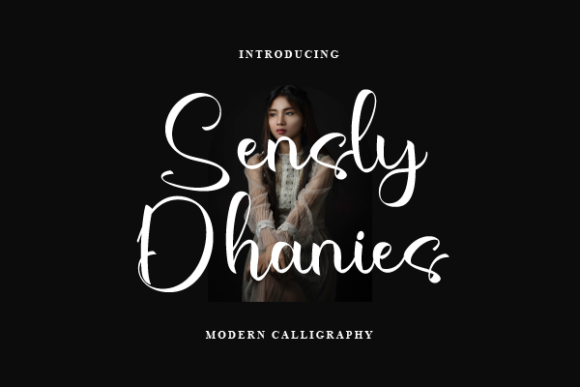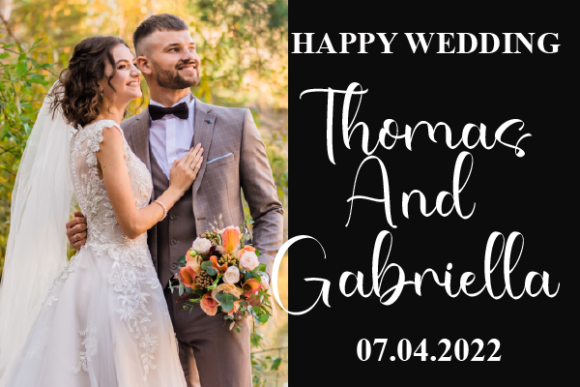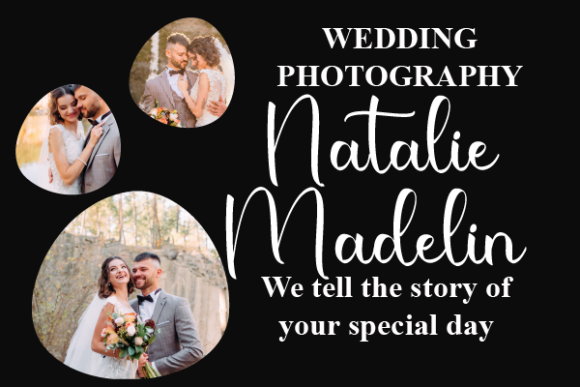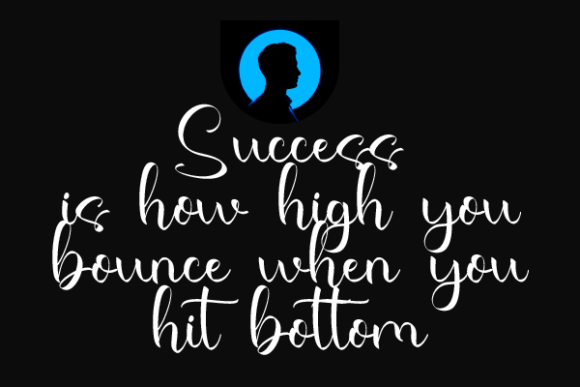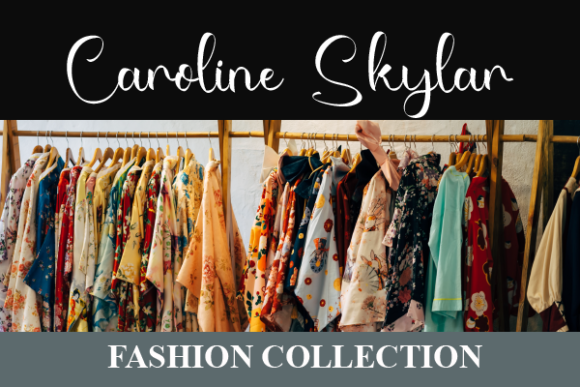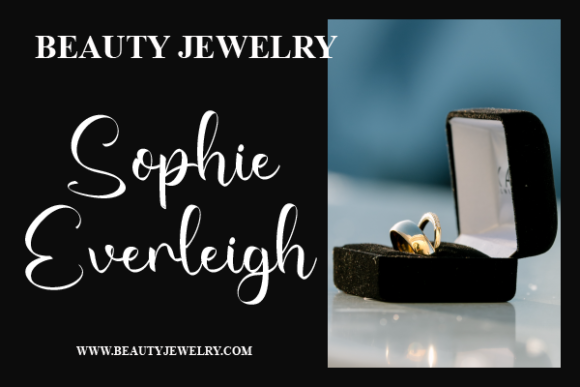
About Sensly Dhanies Font
“Sensly Dhanies”: Elevate Your Designs with Lovely Chic Script Font
Introducing “Sensly Dhanies,” a font that effortlessly blends loveliness and chic sophistication. With its elegant script style, “Sensly Dhanies” is the ideal choice for a wide array of design projects, whether you’re working on product packaging, branding, magazine covers, social media graphics, weddings, or simply adding words above a background.
This font’s versatility knows no bounds. Its graceful curves and refined lines bring a touch of charm and elegance to every application, enhancing the visual appeal of your projects with ease. Whether you’re creating a luxurious product package or crafting an eye-catching social media post, “Sensly Dhanies” adds a dash of sophistication that captivates your audience.
But “Sensly Dhanies” is not just about aestheticsβit’s also practical. Its chic script style offers both beauty and functionality, making it suitable for a variety of design needs. From formal occasions to everyday communication, this font elevates your message with its timeless charm.
From weddings to branding projects, “Sensly Dhanies” serves as the perfect tool for expressing words above the background. Its lovely and chic script style brings warmth and personality to your message, leaving a lasting impression on your audience.
So why settle for ordinary typography when you can enhance your designs with the elegant charm of “Sensly Dhanies”? Whether you’re a seasoned designer or just starting out, this font is sure to inspire creativity and elevate your projects to new heights. Unlock its potential today and let its chic script transform your designs into works of art.